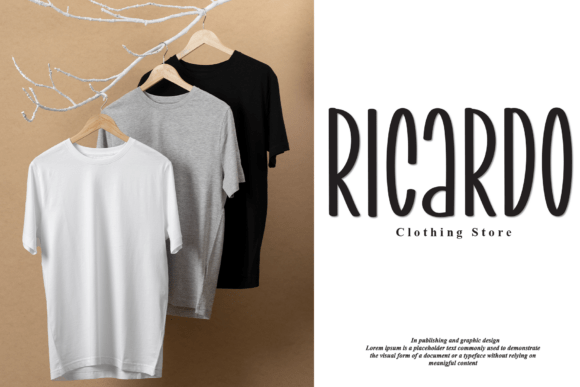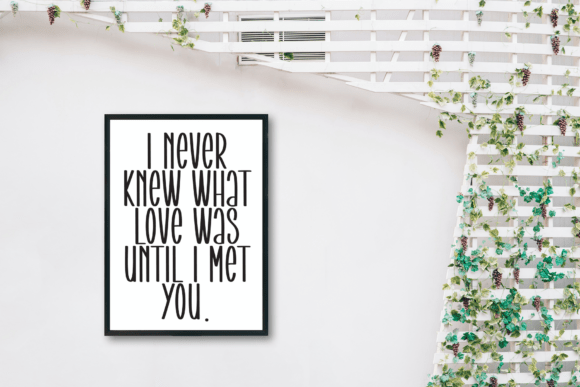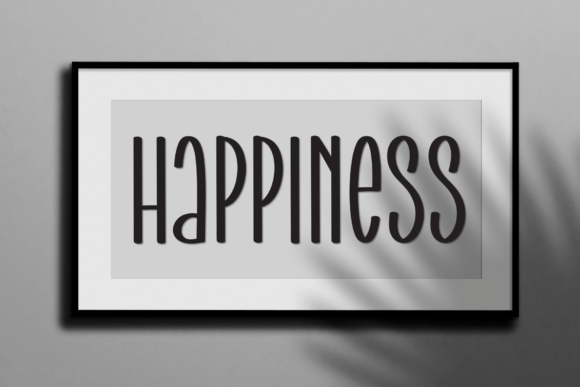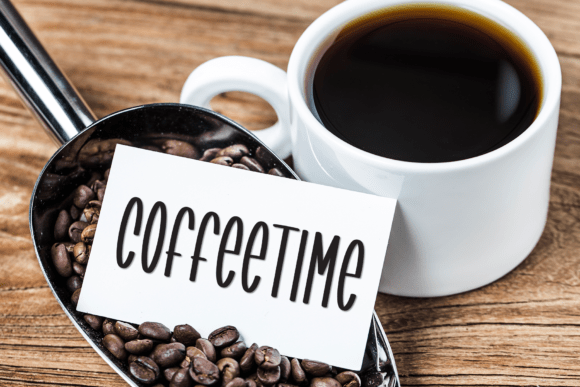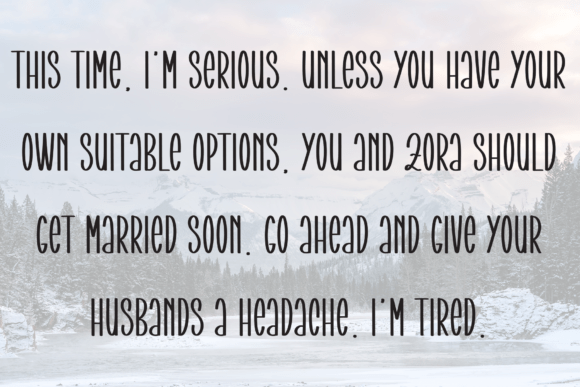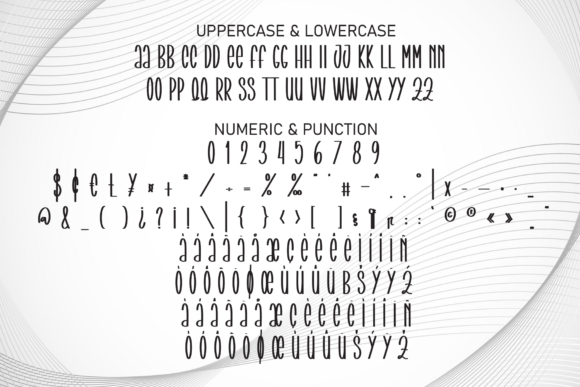
Introduction to News Anchor Font Font
Fonts play a crucial role in design, and the News Anchor Font font is a typeface that brings both character and versatility to any project. Whether you’re working on a branding project, a website, or a print design, the News Anchor Font font offers a unique style that can elevate your work.
Dive into the captivating world of our specially designed handwritten display font that emanates an enticing warmth and charm.
Filled with a teasing spark and hypnotic appeal, this font amplifies the joy of intricately designed wedding invitations, celebratory notes, and a wide range of projects seeking a touch of playful intrigue The appealing and bewitching persona of this font positions it as a top choice for infusing a cheerful twist into your artistic endeavors.
Key Features of News Anchor Font Font
Why Choose News Anchor Font Font?
The News Anchor Font font is more than just a typeface – it’s a design tool that helps you communicate your message with style and clarity. Its unique character set and versatile design make it suitable for a wide range of applications, from elegant invitations to bold headlines.
With its carefully crafted letterforms and balanced proportions, the News Anchor Font font ensures readability and visual appeal across all mediums.
What makes News Anchor Font font special?
The News Anchor Font font stands out with its unique design, exceptional readability, and versatility across various design applications.